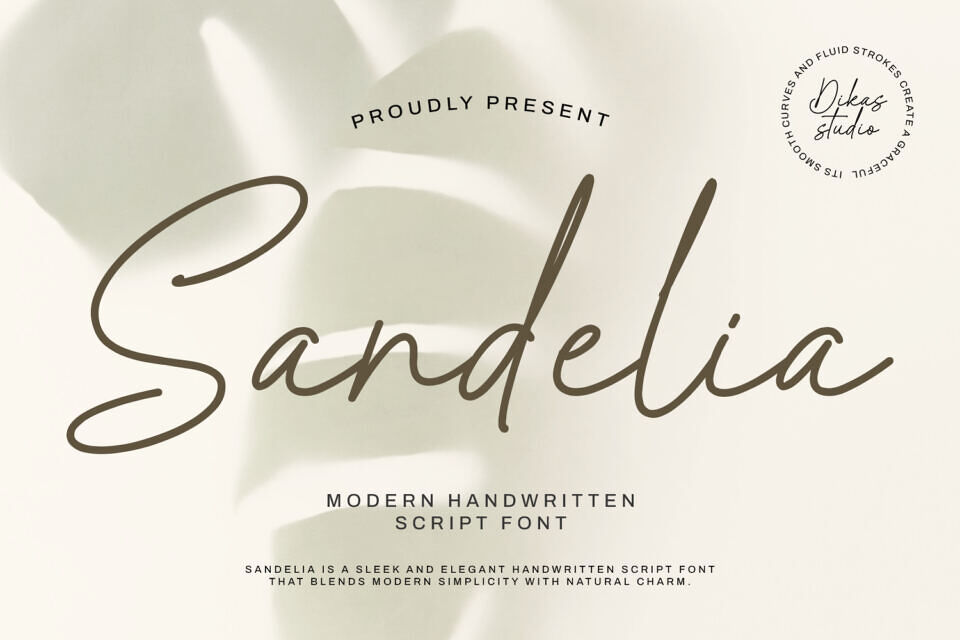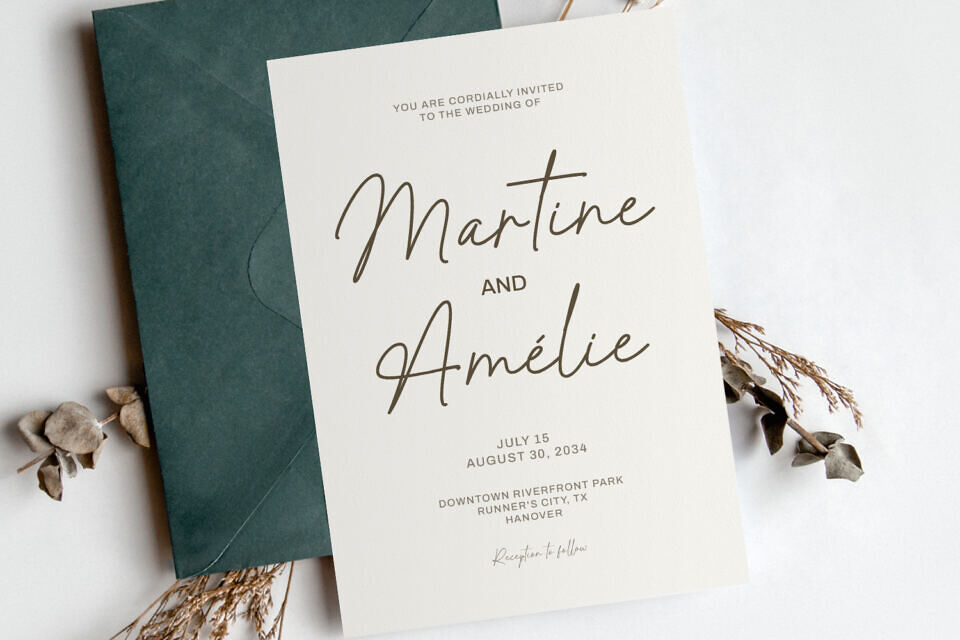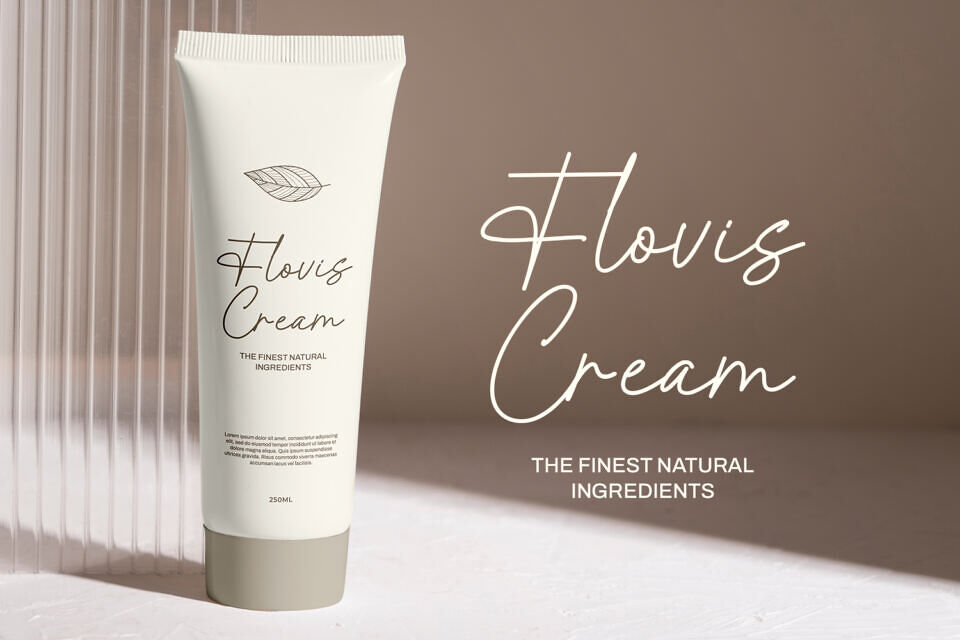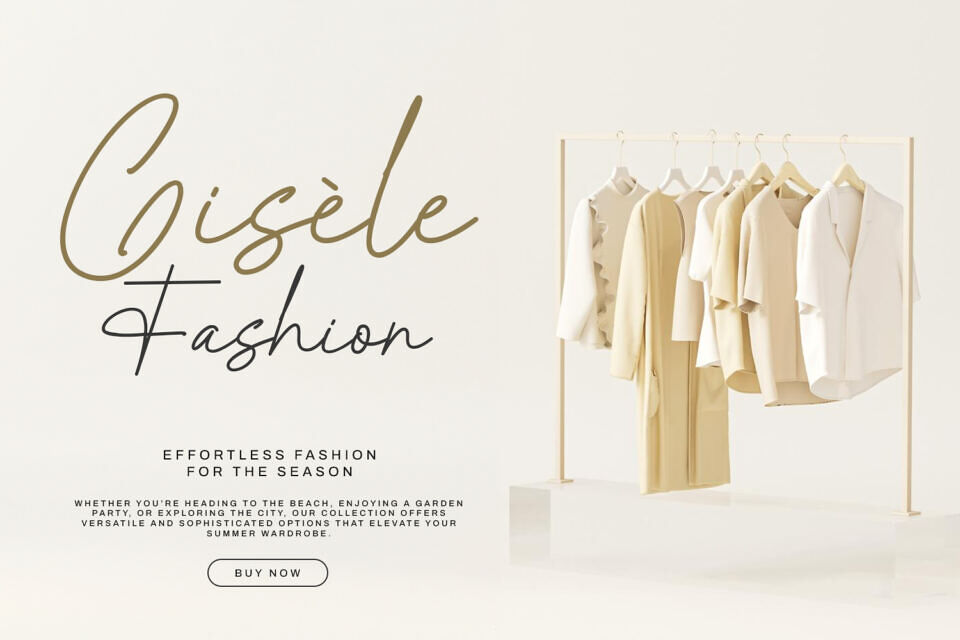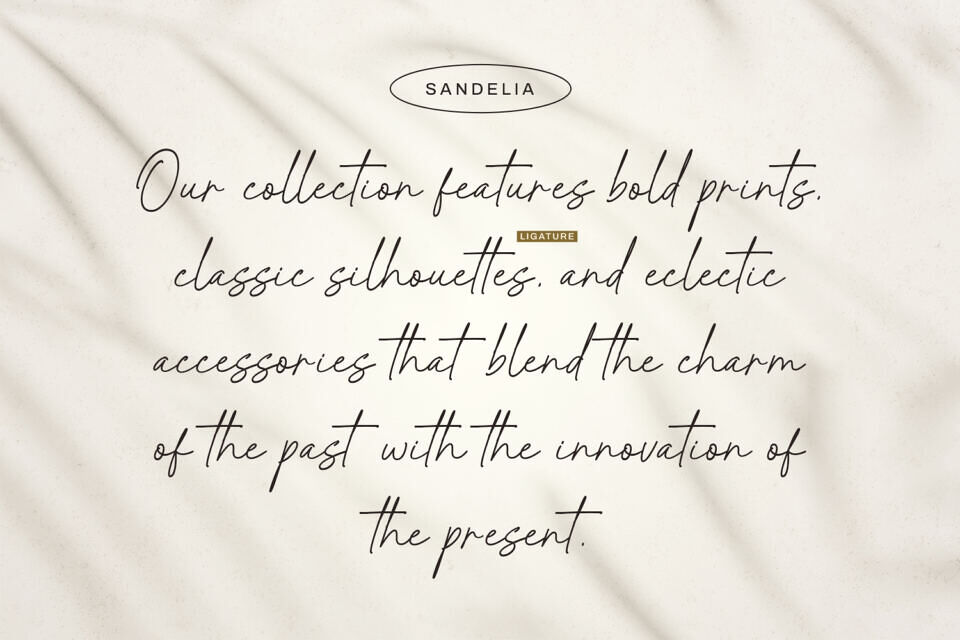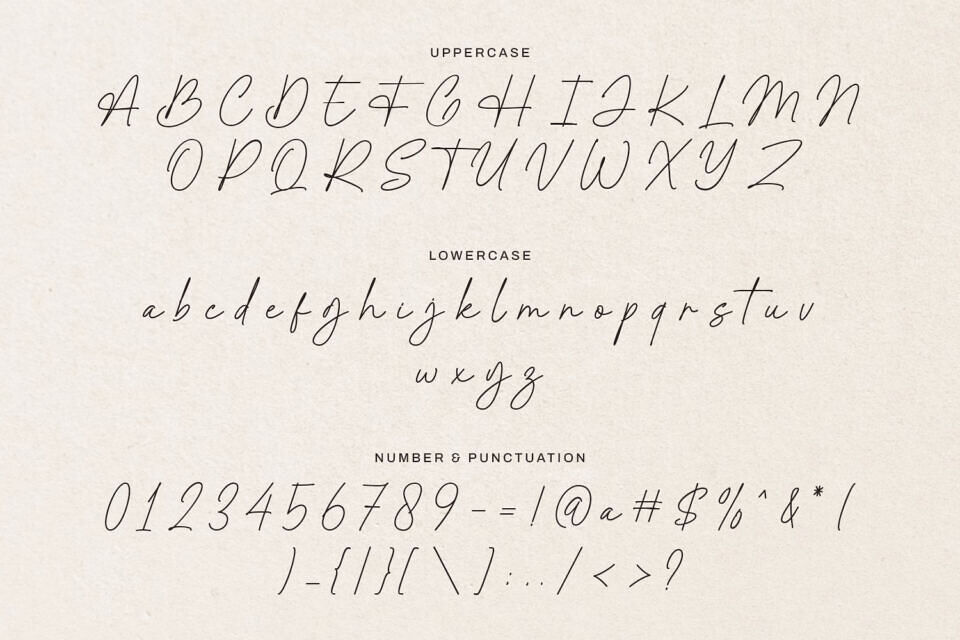
Sandelia is a stylish monoline script font crafted with a natural handwritten flow and elegant curves. Inspired by modern signatures and hand lettering, Sandelia brings a personal and refined touch to any design.
This handmade signature font is perfect for fashion logos, branding projects, personal signatures, and anything that needs a hint of sophistication and charm. Whether you’re designing for high-end fashion labels, boutique branding, or personal name logos, Sandelia helps you express class, creativity, and authenticity — all in one beautiful stroke.